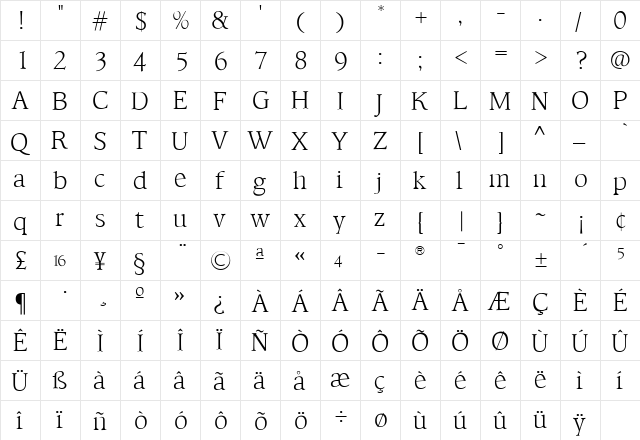
TFHabitat Regular
| Foundry | Joseph Treacy. v. - . . Treacyfaces, Inc |
| Year | 1986 |
Design Context for TFHabitat Typeface
TFHabitat offers clean, dependable letterforms without strong stylistic allegiance, making it a practical choice for designers who need flexibility.